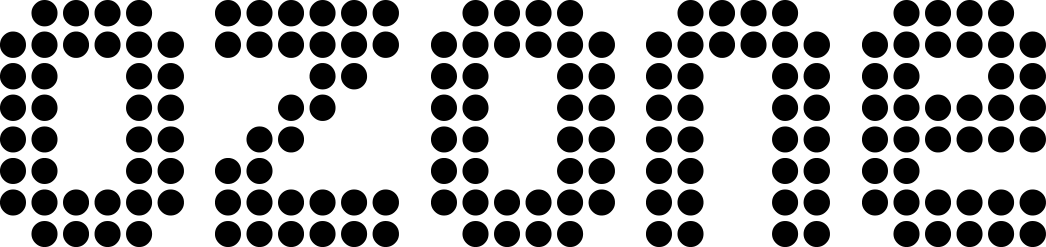
Ozone Font
For making futuristic and digital headlines, digital counters, retro display boards, electronics, or retro games the first thing that you need is a cool scoreboard font. This is where we offer you Ozone which is a dotted font.
This font comes with an impressive collection of characters. You get both the uppercase and lowercase of the alphabet, the numbers, the punctuation marks, and a lot of other letters.